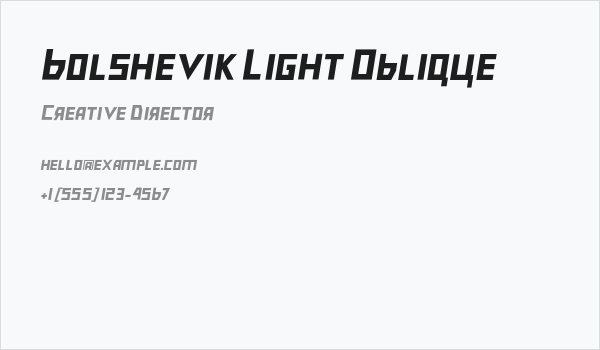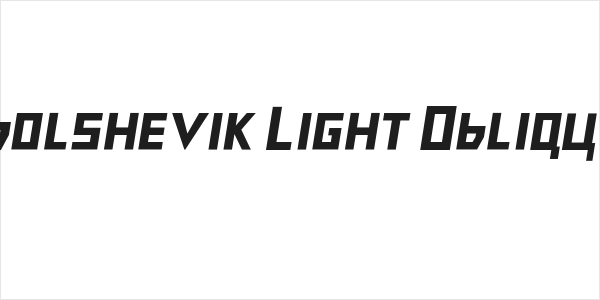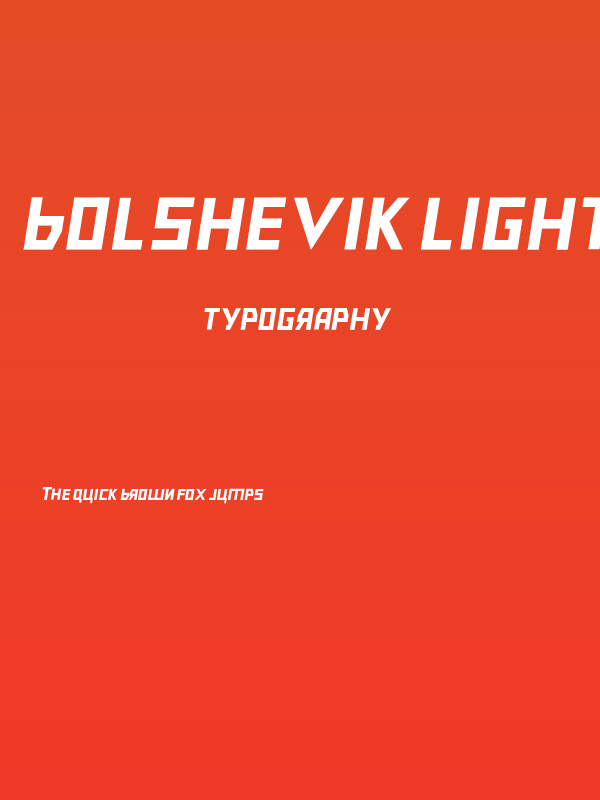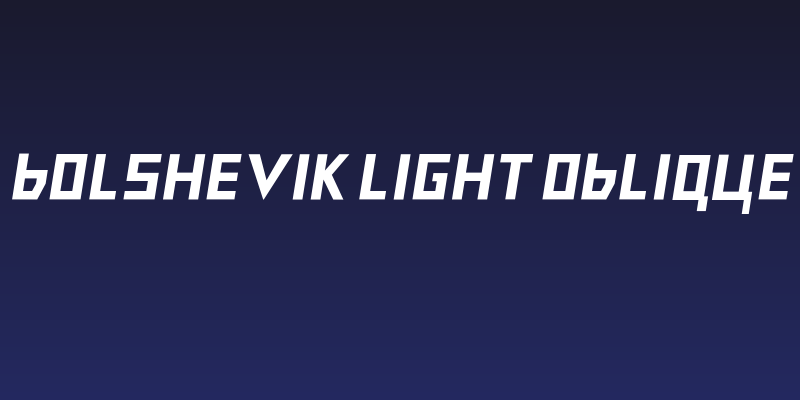
Bolshevik Light Oblique Font
Bolshevik Light Oblique Description
This font features a bold, geometric design with sharp angles and a distinct oblique slant, giving it a dynamic and modern appearance. The characters are uniformly structured, with consistent stroke widths that contribute to its clean and cohesive look. The uppercase and lowercase letters maintain a strong visual presence, while the numerals and special characters are designed to complement the overall style. The font's angular nature and forward-leaning posture suggest movement and energy, making it suitable for projects that require a contemporary and assertive aesthetic.
| Proposed Projects | Ideal for branding, posters, headlines, and any design needing a modern, dynamic touch. |